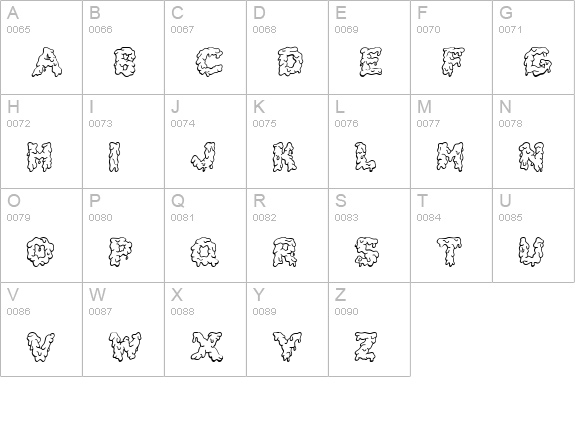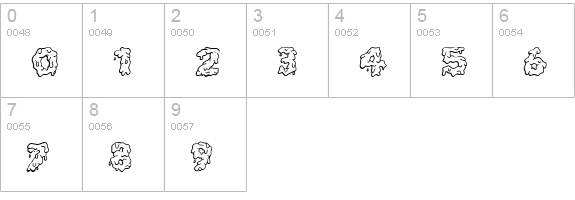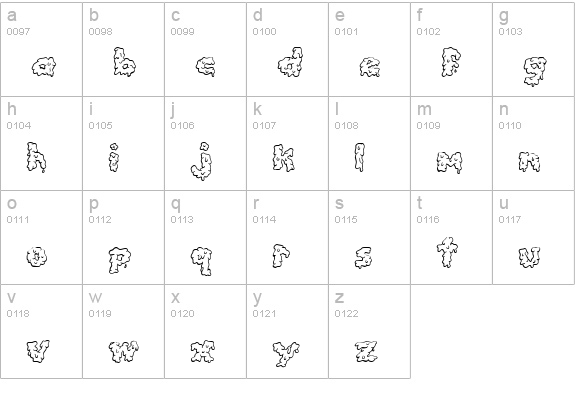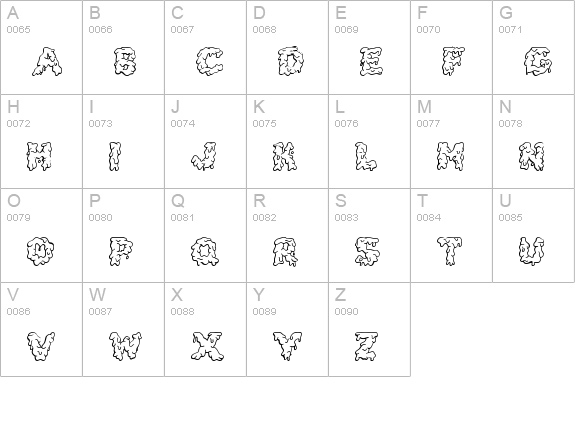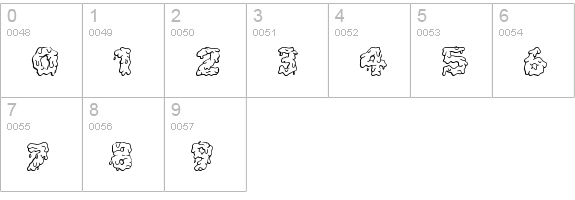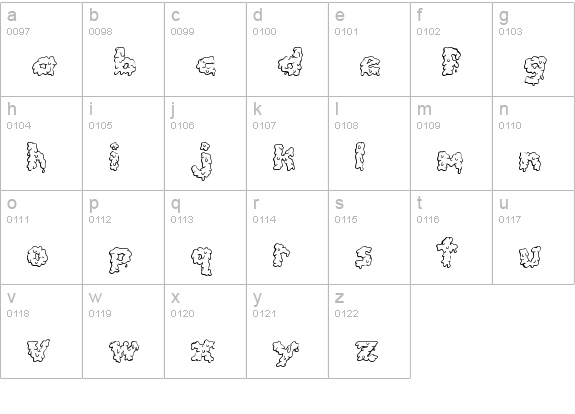
CK Slime Font Details
Introducing CK Slime font, a whimsical and playful typeface perfect for adding a touch of fun and creativity to your designs. This unique font features slimy, dripping letterforms that capture the essence of gooey, gooey slime. CK Slime font is ideal for projects that require a quirky and lighthearted aesthetic, such as children's books, party invitations, or social media graphics. Best of all, CK Slime font is completely free to use and is available for download at FontsMarket.com. Whether you're a seasoned designer looking to add a touch of whimsy to your work or a hobbyist creating personalized crafts, CK Slime font is sure to delight and inspire. Download this free font today and let your creativity flow with its playful and unique style.